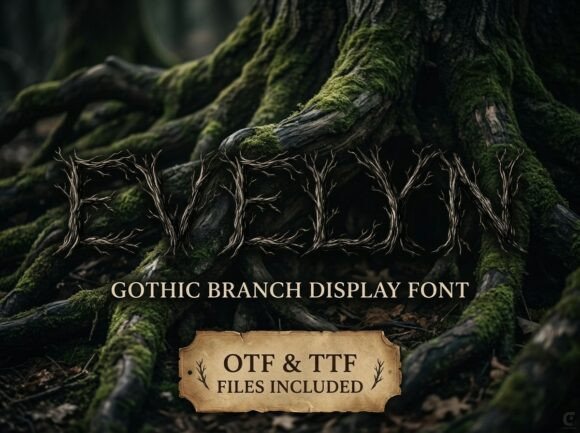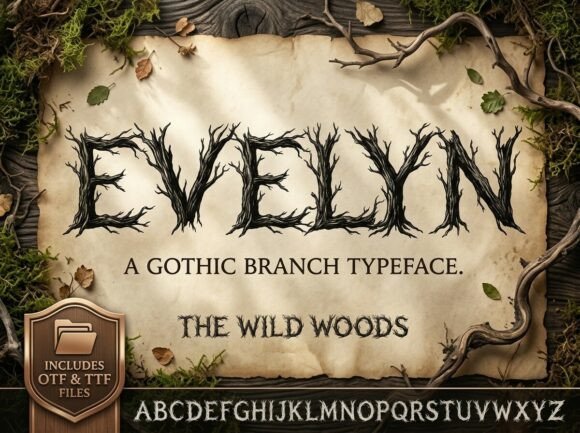
Unleash the Mystique of the Ancient Woodland with Evelyn Font
Are you a designer or crafter looking for a font that embodies the essence of the mysterious and the unknown? Look no further than Evelyn, a premium gothic forest font that will transport your creations to a realm of dark, atmospheric beauty. This high-detail display typeface is meticulously crafted to evoke the twisted, gnarled branches and creeping briars of an ancient woodland, perfect for conjuring up the eerie and enchanting worlds of dark fantasy, folk-horror, and nature-goth aesthetics.
The Inspiration Behind Evelyn
Evelyn’s design is rooted in the intricate details of nature, where the boundaries between reality and myth blur. The font’s creator drew inspiration from the twisted, organic shapes of ancient trees, overgrown with creeping briars and vines. The result is a letterform that appears to be grown, rather than written, with each character showcasing the intricate wood-grain textures and sharp, spindly silhouettes that evoke a sense of mystique and foreboding.
Key Features of Evelyn Font
- Intricate Wood-Grain Textures: Add a tactile, organic feel to your designs with Evelyn’s detailed wood-grain textures that give each character a unique, hand-crafted appearance.
- Twisted, Gnarled Branches: The font’s letterforms are crafted to resemble twisted, gnarled branches, perfect for conjuring up the eerie, mystical atmosphere of an ancient woodland.
- Creeping Briars: Delicate, creeping briars weave their way through the characters, adding an extra layer of intricate detail and mystique to the font.
- Sharp, Spindly Silhouette: Evelyn’s characters feature sharp, spindly silhouettes that evoke a sense of foreboding and mystery, perfect for dark fantasy and folk-horror applications.
Perfect for Dark Fantasy and Gothic Designs
Evelyn is the premier choice for designers and crafters looking to create dark, atmospheric designs that transport their audience to a realm of mystery and enchantment. Whether you’re working on:
- Dark Fantasy Book Covers: Summon the mystical and eerie atmosphere of the ancient woodland to entice readers to your latest dark fantasy novel.
- Folk-Horror Cinema Titles: Create chilling, atmospheric titles that evoke the sense of foreboding and dread associated with folk-horror cinema.
- Atmospheric Gaming Interfaces: Transport gamers to a realm of dark, mystical wonder with Evelyn’s intricate, organic design.
- Edgy “Nature-Goth” Apparel: Add a touch of mystique and rebellion to your nature-goth apparel designs with Evelyn’s unique, hand-crafted aesthetic.
Why Choose Evelyn Font?
Evelyn is more than just a font – it’s an experience. With its intricate wood-grain textures, twisted, gnarled branches, and creeping briars, this premium gothic forest font will weave a spell around your designs, transporting your audience to a realm of dark, atmospheric beauty. Whether you’re a designer, crafter, or artist, Evelyn is the perfect choice for anyone looking to add a touch of mystique and enchantment to their creations.
Get Ready to Cast a Spell with Evelyn